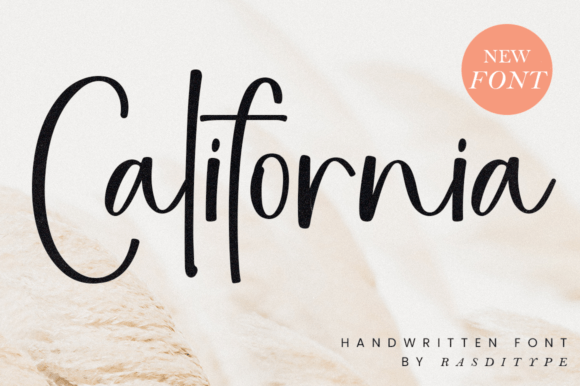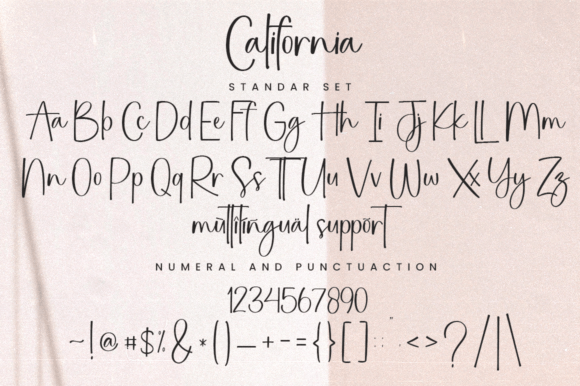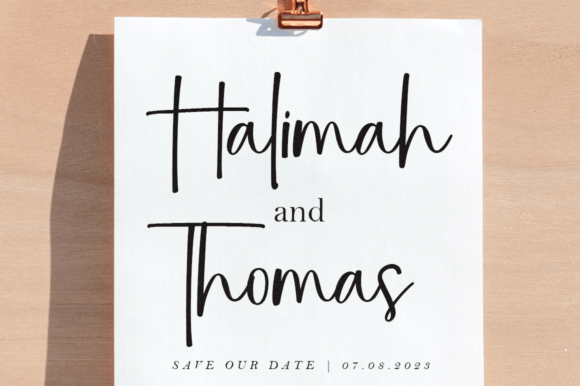
About the California Font
The California Font is here to transform your projects with its distinctive character and style. Calirfornia is a beautiful handwritten font ideal for logos, wedding stationery, photography watermarks, modern websites, and more. Fall in love with its incredibly distinct and timeless style, and use it to create spectacular designs!
California Font Usage Examples
California Font Example